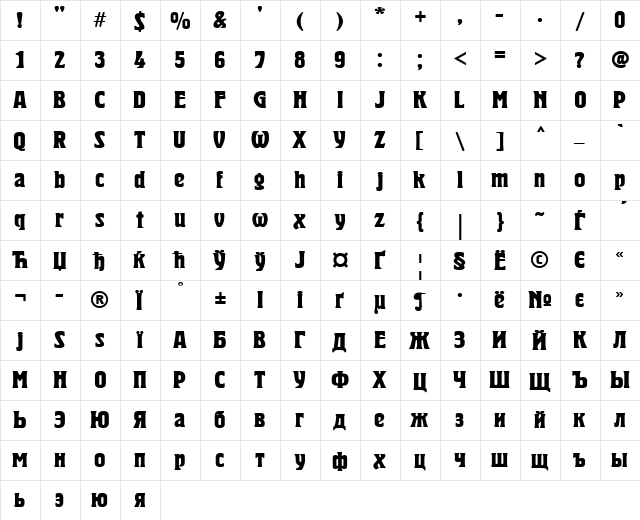
HeroldC Regular
| Foundry | ParaType, |
Design Context for HeroldC Typeface
HeroldC offers clean, dependable letterforms without strong stylistic allegiance, making it a practical choice for designers who need flexibility.